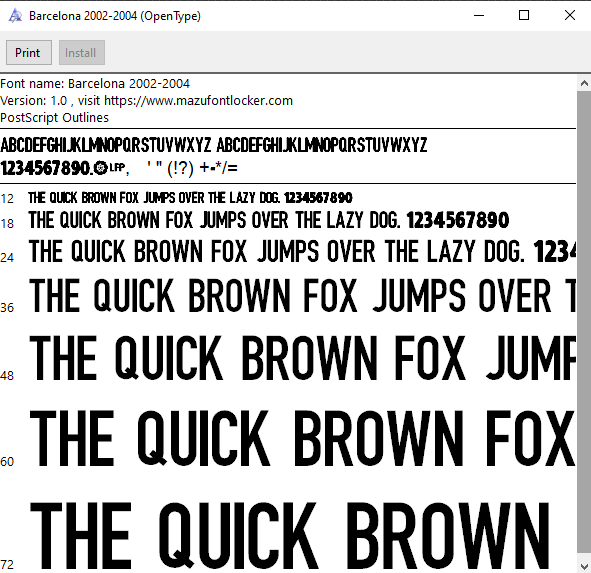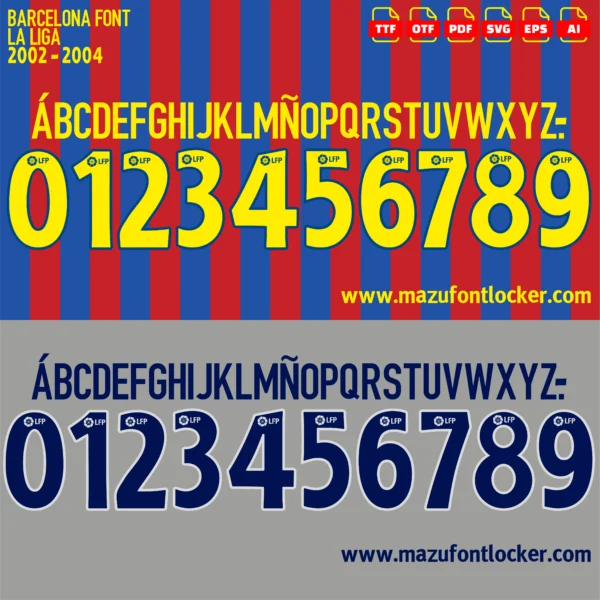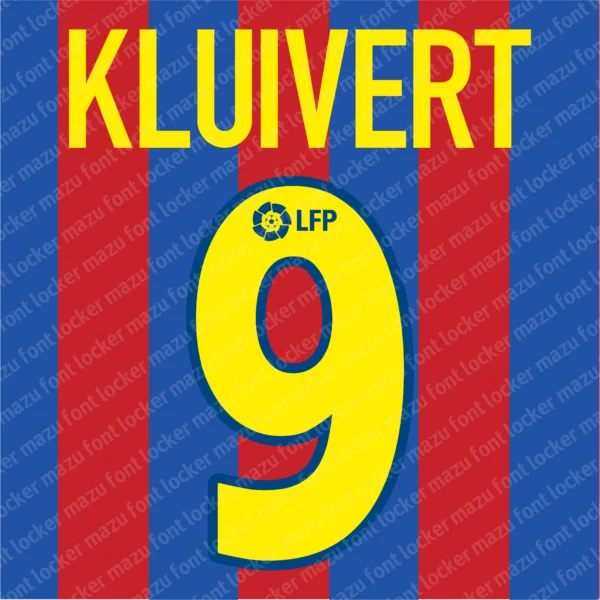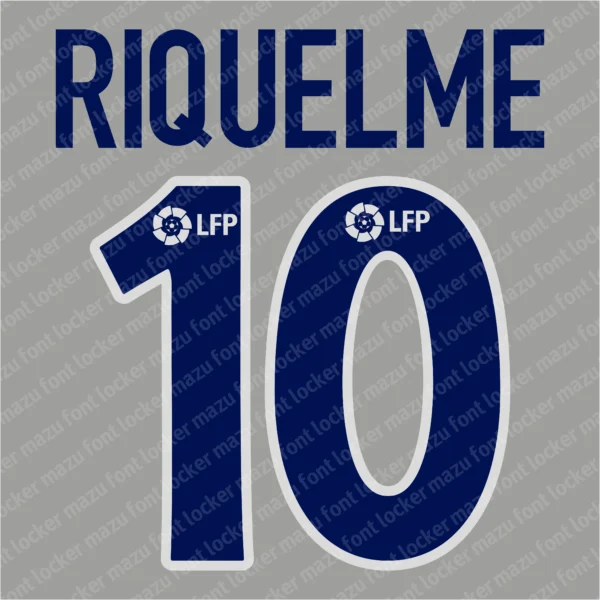
Barcelona 2002-2004 Font Vector – Legendary Blaugrana Masterpiece
This font captures the razor-sharp, thunderous lettering that embodies Barcelona’s proud club identity, rich Spanish football heritage, iconic blue-and-red tradition, and unstoppable fighting spirit — delivering premium quality and explosive energy for jersey mockups, football graphics, sports branding, and fan creations.
Barcelona 2002-2004 Font Vector – Blaugrana Heritage Typeface
The Barcelona 2002-2004 Font Vector is a premium typeface that accurately recreates the official match lettering worn by FC Barcelona during the 2002-2004 period. This high-quality vector font kit captures the bold, clean, and instantly recognizable typography that perfectly complements the club’s iconic blue and red identity.
Designed for professional designers, football enthusiasts, and passionate Culés, the Barcelona 2002-2004 Font Vector delivers exceptional authenticity for creating realistic jersey mockups, football merchandise, social media graphics, match posters, and custom fan artwork. Every character has been carefully recreated to match the powerful and precise visual style of one of the world’s most historic and successful football clubs.
This font stands out thanks to its precise vector construction and authentic club-inspired styling. Every letter and numeral has been meticulously recreated to match the official shirt lettering used throughout the 2002-2004 seasons and associated campaigns. Whether you’re producing professional kit templates or creating eye-catching football content, the Barcelona 2002-2004 Font Vector delivers a genuine match-ready appearance inspired by the proud identity of the Blaugrana.
The lettering featured in the Barcelona 2002-2004 Font Vector combines clean geometric lines with powerful modern proportions. The result is a premium and highly readable typeface that reflects FC Barcelona’s fighting spirit, attacking football, resilience, and proud Catalan heritage.
• Complete uppercase A–Z alphabet and numbers 0–9 in authentic Barcelona 2002-2004 style
• Special LFP badge glyph – Press the “:” (Colon) key to insert the club crest
• Recreate the distinctive look of Barcelona player names and squad numbers for creative projects
Barcelona 2002-2004 Season
The 2002-2004 period marked an important chapter for FC Barcelona as the club competed in LaLiga and European competitions while building towards future success. Competing in high-profile matches, Barcelona showcased its iconic blue and red kit with pride on both domestic and international stages.